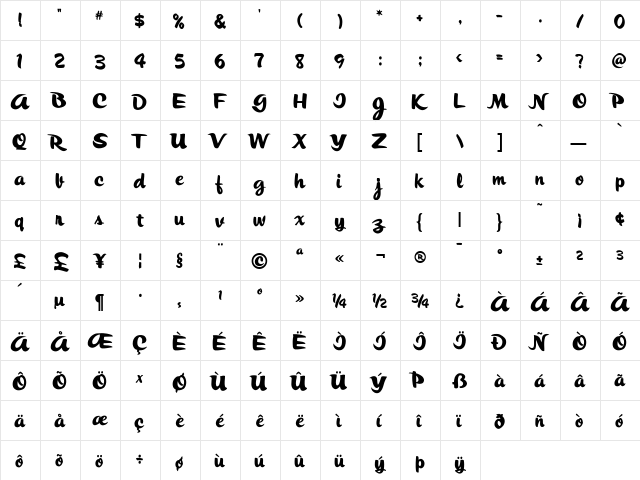
Charlene Medium
Design Context for Charlene Typeface
Charlene is a composed and adaptable typeface that performs quietly and consistently across a wide range of design contexts.